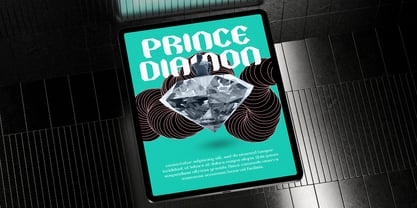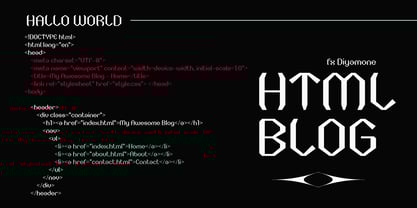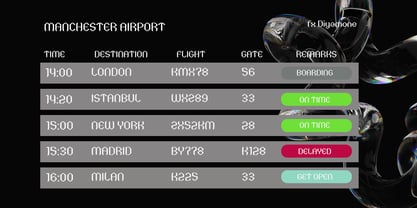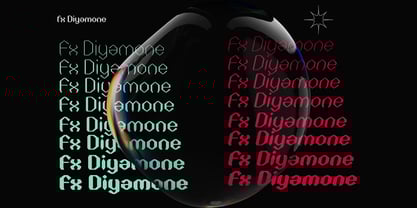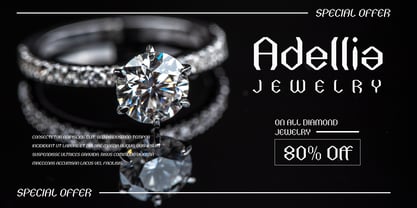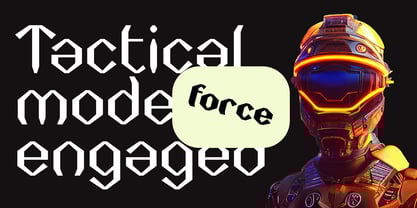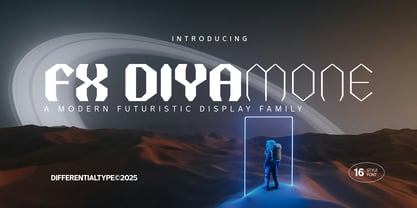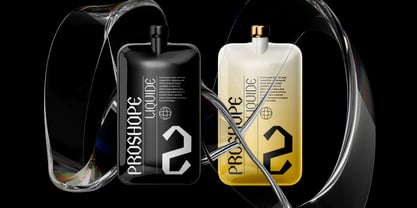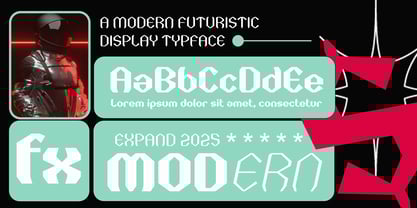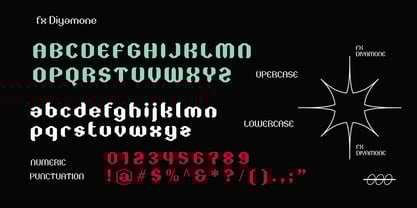
FX Diyamone
by Differentialtype
The FX Diyamone Font Family was designed by Sidik Sidik and published by Differentialtype. FX Diyamone contains 16 styles and family package options.
Cast a modern, futuristic touch on your typographic designs with FX Diyamone. This unique display font family, featuring 8 distinguished weights as well as a suite of italic styles, comes with an impressive 16 dynamic variations. FX Diyamone is the epitome of bold, structured elegance- the diamond brilliance of each geometric line striking a perfect balance between cutting-edge innovation and refined sophistication. The font commands attention, carrying with it a formidable presence that enhances everything from branding to headlines and all creative projects in-between.
FX Diyamone pushes the boundaries in not just being a font, but an authoritative declaration that showcases a fusion of forward-thinking style and unmistakable elegance. It's perfect for posters, logos, book covers, news headlines, and product branding. Its strong presence is beautifully counterbalanced by optimum readability, making it the go-to choice for designs that echo sophistication and progressive style. Crafted meticulously, each letter effortlessly blends boldness with clarity, resonating a unique identity.